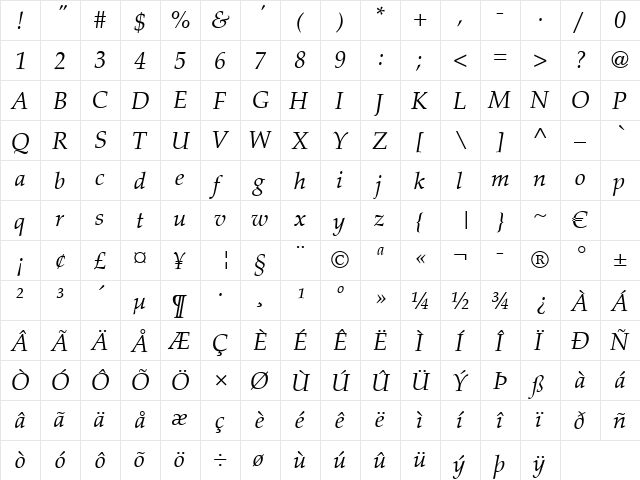
Palermo Italic
Design Context for Palermo Typeface
Palermo is a composed and adaptable typeface that performs quietly and consistently across a wide range of design contexts. Its italic angle brings a sense of urgency and motion to the letterforms.
Pro Tip: Try Palermo for annotation and caption copy alongside an upright companion — the contrast in angle creates a dynamic but ordered typographic system.